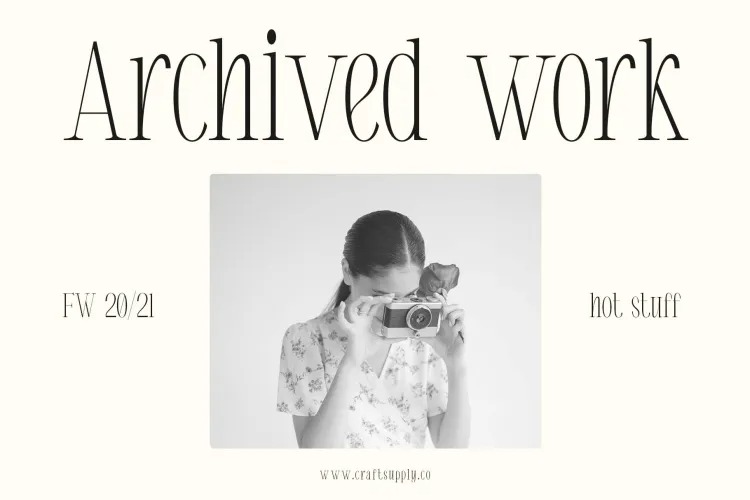
Eugerie Font
Eugerie Serif Font
This is an elegant and thin lettered serif font manufactured by Craft Supply Co. It can be used to create almost all types of design projects like print materials. Just use your imagination and some graphic design set in Extras, your project will become more alive and look great than ever with Eugerie – Classic Modern Typeface..